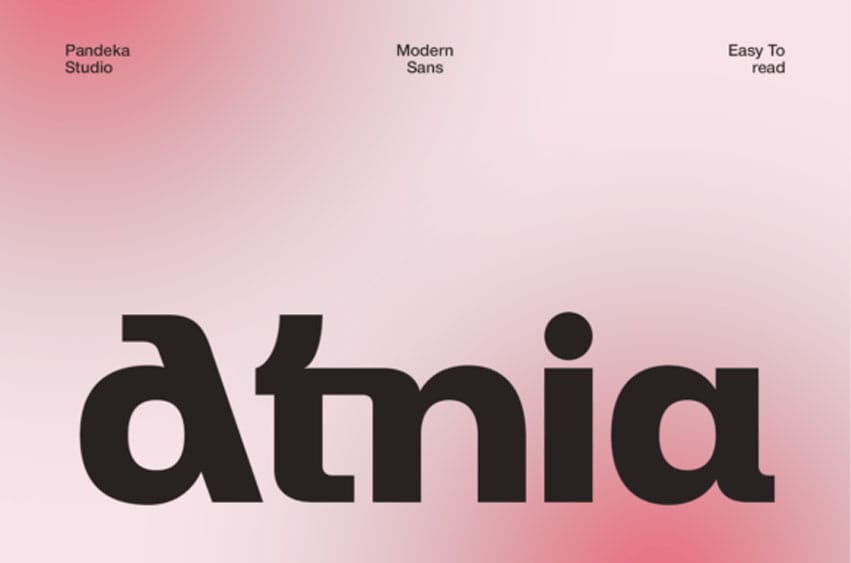
Atnia Font is a clean and modern geometric sans-serif font designed with simplicity and precision in mind. Its balanced letterforms and smooth curves make it a perfect choice for contemporary branding, editorial layouts, web design, and digital interfaces. Atnia embraces a minimal aesthetic that communicates clarity, professionalism, and modern sophistication in every composition.
Atnia’s timeless structure and geometric balance make it ideal for logos, posters, headlines, and creative projects that require a sleek and modern typographic look.